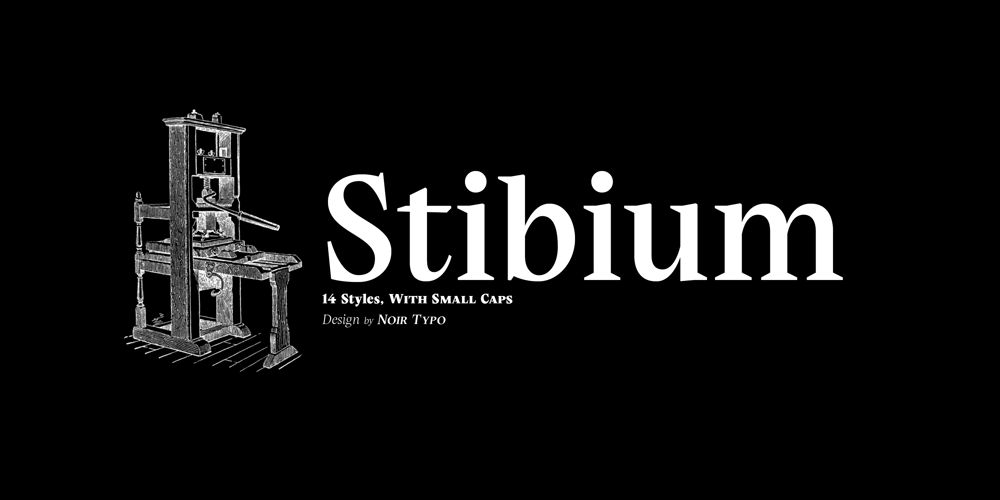
Stibium
Stibium font
Stibium Font Family was designed by Olivier Gardera and published by Noir Typo. Stibium contains 14 styles and family package options. Stibium is a mix between a garalde character and a transitional character.It is inspired by the humanist calligrahy of the Renaissance, the axis is oblique but with more compact proportions and pointed serifs inspired by the pen drawing.It has 7 different styles with the italics.Each contains 685 glyphs with an alternate “A”, small caps, Old Style numbers and symbols.